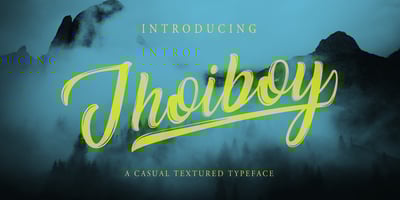
Jhoiboy Font Family was designed by Oki Candra Setiawan and published by OCSstudio. Jhoiboy contains 1 styles and family package options. Jhoiboy is a casual grunge texture with many variations of font shapes to create a perfect and unique design.Jhoiboy has 8 alternatives, 7 alternatives for lowercase letters and 1 alternative for uppercase letters, along with ligature and multi-lingual support that will match your desires.